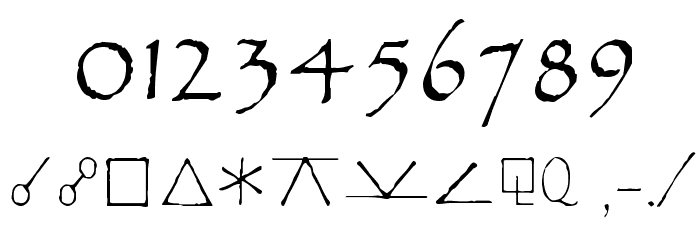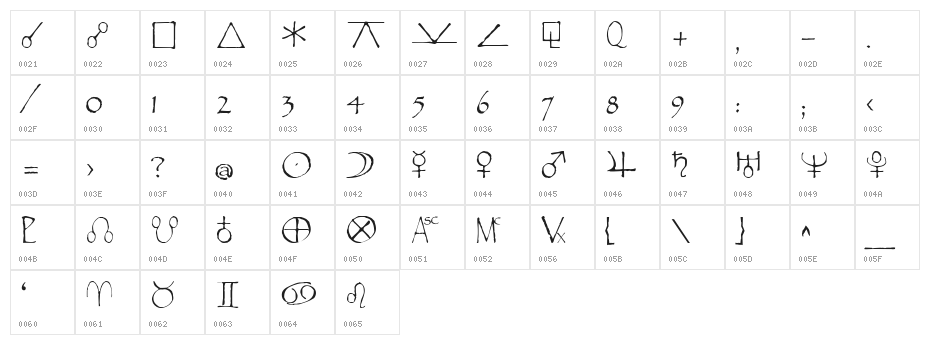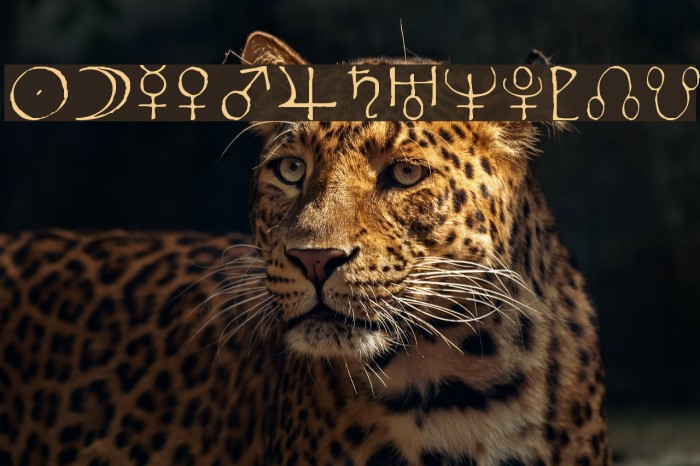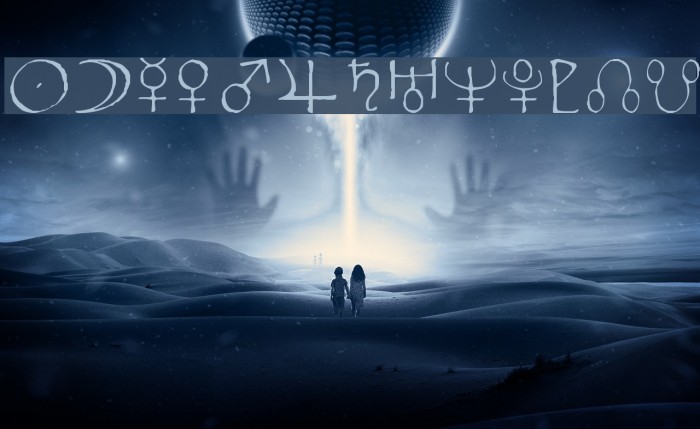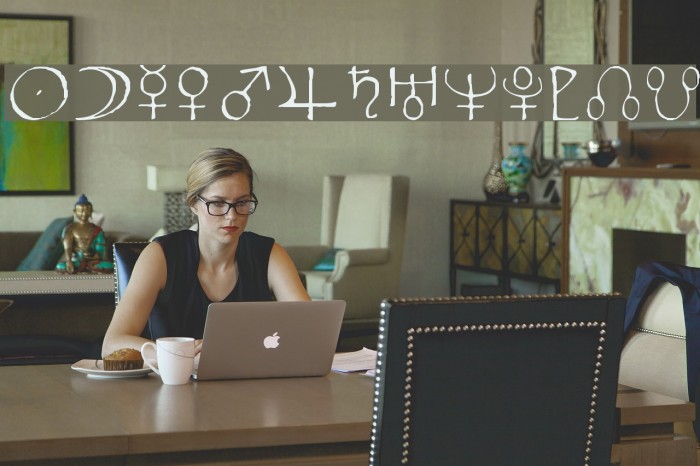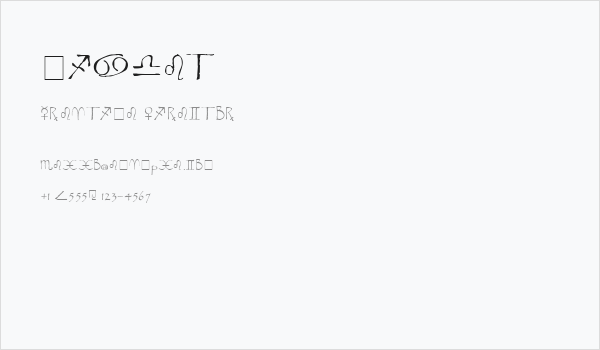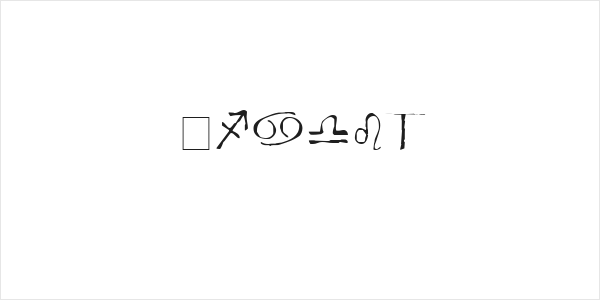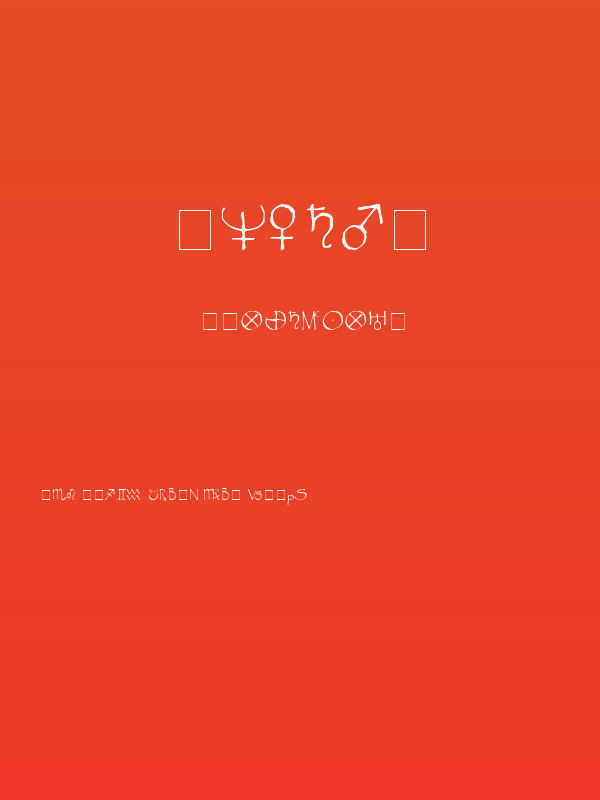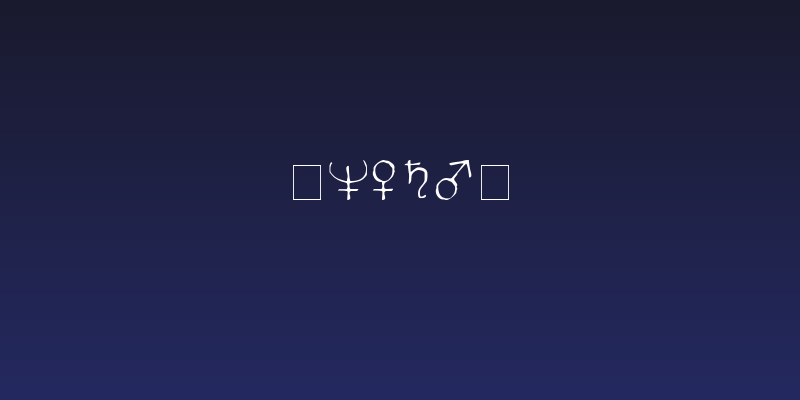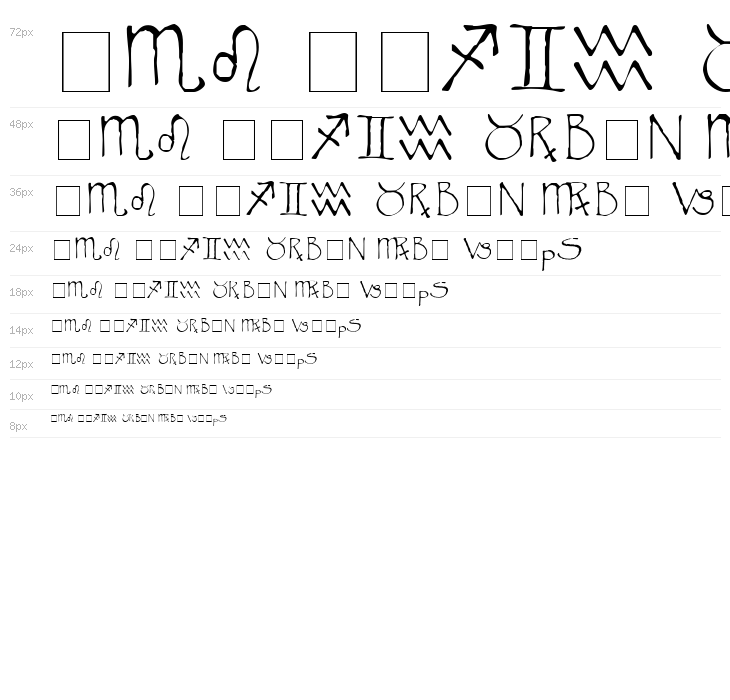
This font is a collection of astrological and alchemical symbols rather than a traditional alphabet. It features a variety of unique and intricate symbols that are reminiscent of ancient scripts and mystical iconography. The characters are highly decorative, with each symbol having its own distinct style and flair. The overall appearance is enigmatic and esoteric, making it suitable for projects that require a touch of mystery or historical reference. The symbols are not uniform in size or shape, adding to the eclectic and artistic nature of the collection.
| Overall Style | Mystical, Ancient, Decorative |
| Use Case | Logos, Decorative elements, Themed designs |
| Proposed Projects | Ideal for use in projects related to astrology, alchemy, fantasy games, mystical themes, or historical recreations. |